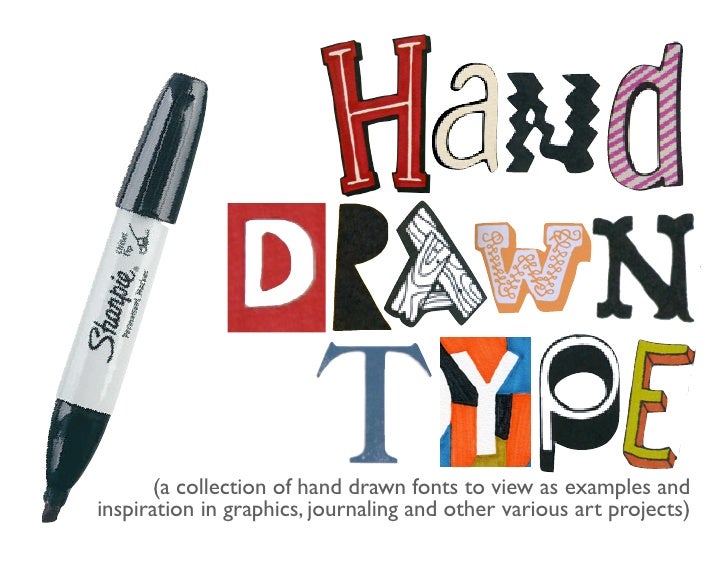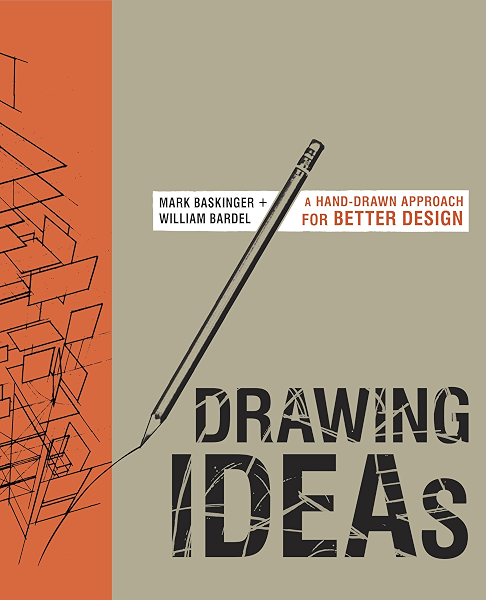
Hand Drawn Font Ideas
Top Handwriting fonts MyIllutions Handwriting Font MyIllutions is a fascinating, stylish and unusual font This beautiful, modern italics Hardwatt Script Font Discover the limitless design possibilities with this fabulous Hardwatt Script Font The Choerunnisa Handwriting Font This is.
Hand drawn font ideas. Handlettered vintage style is brought forward by a “grainy and gritty” texture in EightyOne Six different fonts are included in this one package, along with plenty of handdrawn glyphs and typographical charms. Handdrawn fonts are always in demand as they are of more quality and represent the hard work put in by the designer Handdrawn fonts and other styles are given priority than other computerized fonts Some people think that handdrawn fonts require a lot of perfection and practice It is not like that. Crafter Free Font (Chalkboard Font Ideas) Prefer a vintage stamp look and feel?.
Seurat’s Dots and Dashes The style of artist of Georges Seurat is a playful inspiration for an artful alphabet font Using dots and dashes of color in the impressionistic pointillism style creates an optical treat as the energetic filler for handdrawn letters. Looking for cute & feminine font pairing ideas for ?. This font has the flair of an antique display face without the fuss Fusty Saddle Inspired by Sideshow, from Harold’s Fonts, Fusty Saddle is a handdrawn, Wild Westinspired font made digital Bittbox not only provides you with a font but a definition “fusty,” according to their site, means “oldfashioned in attitude and style.
In my online course, Lettering Layouts, we talk about how to pair different styles of lettering and creates beautiful, impactful messages with themSometimes it can be tough just coming up with some different lettering ideas, though!. To make things a little easier, this week I’m sharing 10 super easy hand lettering enhancements anyone can do. Millerstone’s gentle calligraphic style renders beautifully when applied to delicate headlines and names Taken from hand drawn ligatures and letterforms, this font gives your wedding invites a personal and dainty touch Download the Millerstone Demo font on Dafont here It’s free for personal use only.
Imagine using a handwriting font instead of websafe fonts like Arial, Times New Roman for your blog titles, post titles etc, you will surely catch the eyes of your readers Handwriting fonts are good for logos, headers, titles, notes but not for regular text Hasty Tasty created by David Kerkhoff is a typical font in handwriting style As its name suggests, Hasty Tasty looks like a hastily penned down recipe, a quickly jotted down note. The best selection of Royalty Free Gangster Font Vector Art, Graphics and Stock Illustrations Download 55 Royalty Free Gangster Font Vector Images. Decorative Alphabet Letters Cool Fonts Alphabet Lettering Styles Alphabet Lettering Design Lettering Ideas Hand Fonts Hand Drawn Fonts Capital Letter Fonts Chalkboard Fonts Vector hand getekende lettertype, op basis van de Engelse hand getrokken ABC van a tot z en getallen van 0 tot en met 9.
Feb , Free Fonts, Commercial Fonts, and My Favorite Calligraphy Fonts from Across the Web!. Freebie of the Week is here with Drop Swing, a handdrawn font!. Check out this list for the best type families for the food industry You can find even more creative foodinspired fonts here Food Fonts That Are Good Enough To Eat 1 Pink Lemonade Retro Display Font Inspired by the 50s to 70s pop art culture with roots in the Art Deco scene, this font is simply fizzing to join your designer’s toolkit!.
Decorative Alphabet Letters Cool Fonts Alphabet Lettering Styles Alphabet Lettering Design Lettering Ideas Hand Fonts Hand Drawn Fonts Capital Letter Fonts Chalkboard Fonts Vector hand getekende lettertype, op basis van de Engelse hand getrokken ABC van a tot z en getallen van 0 tot en met 9. Here's a great set of super modern, professional & elegant best font combination guide ideas and inspiration!. Drop Swing is a charming and romantic handmade font, perfect for holiday greeting cards, invitations, postcards and more!.
21 Best Fonts for Hand Drawn Style Web Design Henry Jones June 29, 09 28 Comments 0 613 By now you have probably noticed a lot of “hand drawn” style web designs. This free font is a great fit for projects that use a lot of texture, like a chalkboard aesthetic 13 Maler Free Font This font has a brush look and feel, but the texture could work well on a number of textures and surfaces Give this free font a download today 14. Feb , Free Fonts, Commercial Fonts, and My Favorite Calligraphy Fonts from Across the Web!.